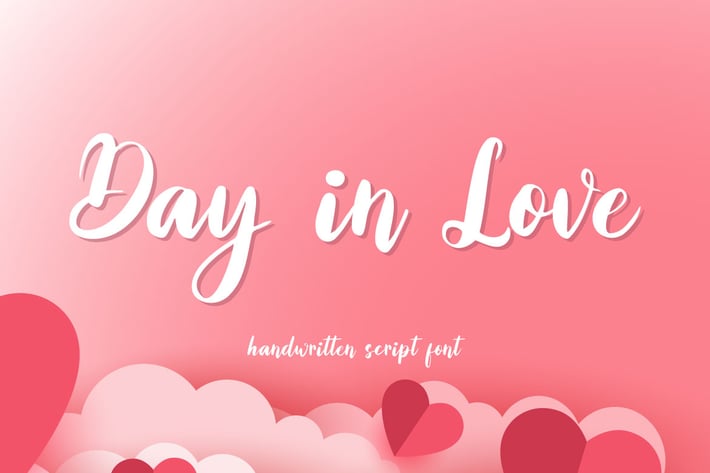
Day in Love - Luxury Handwritten Script Font
Hello! DAY IN LOVE is a display font with natural handwritten style.
Day in Love can be used in any works such as wedding invitation, book title, poster, advertisement, social media content, logo and many more.